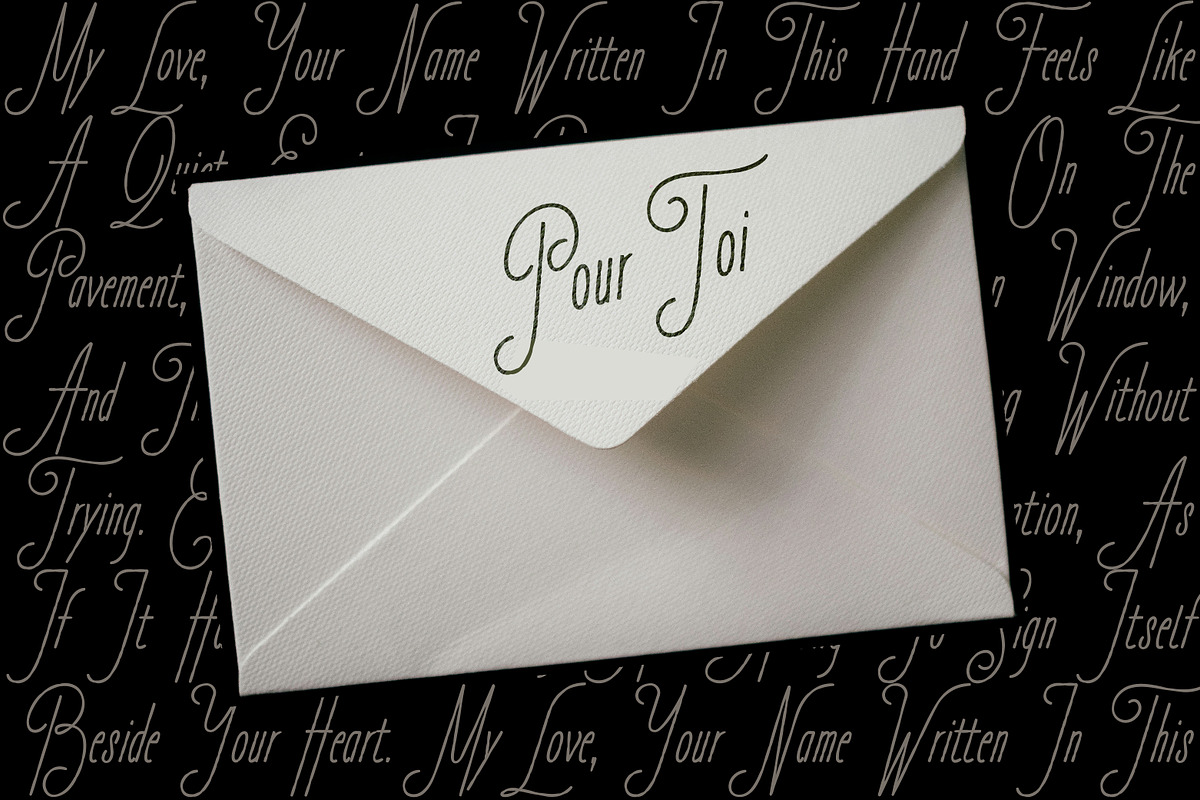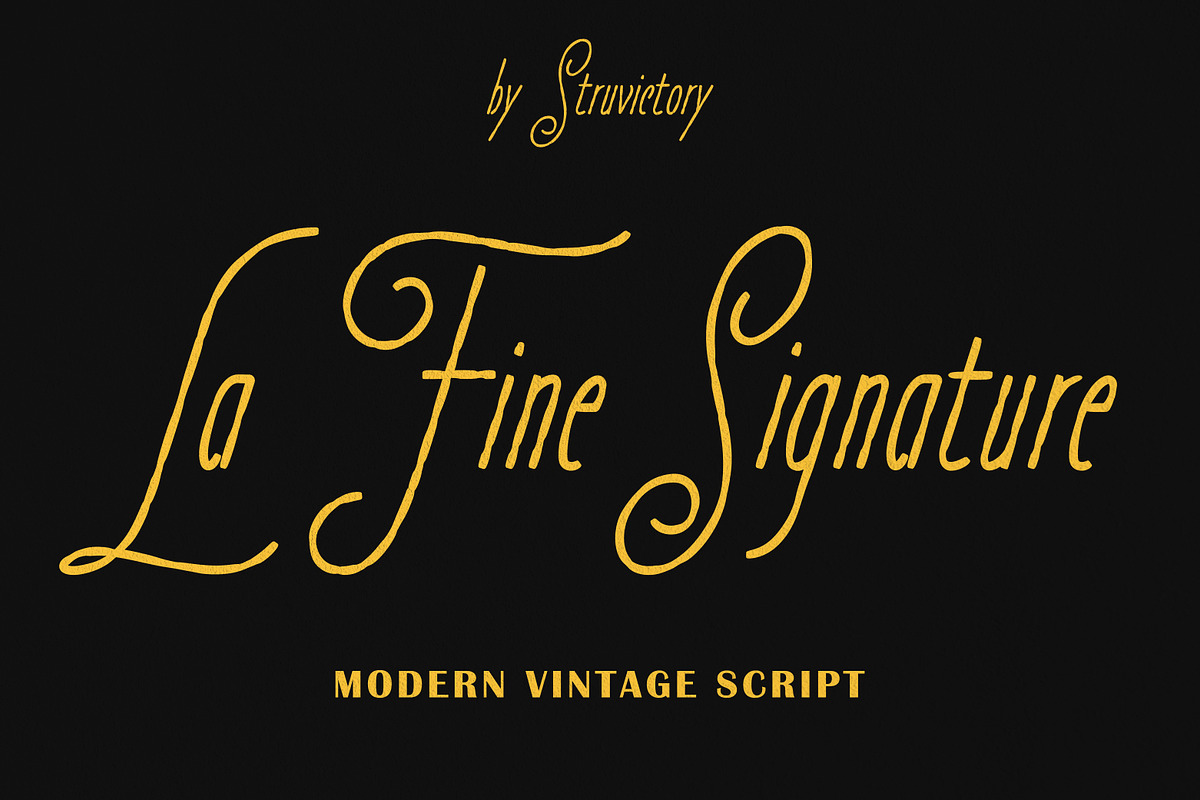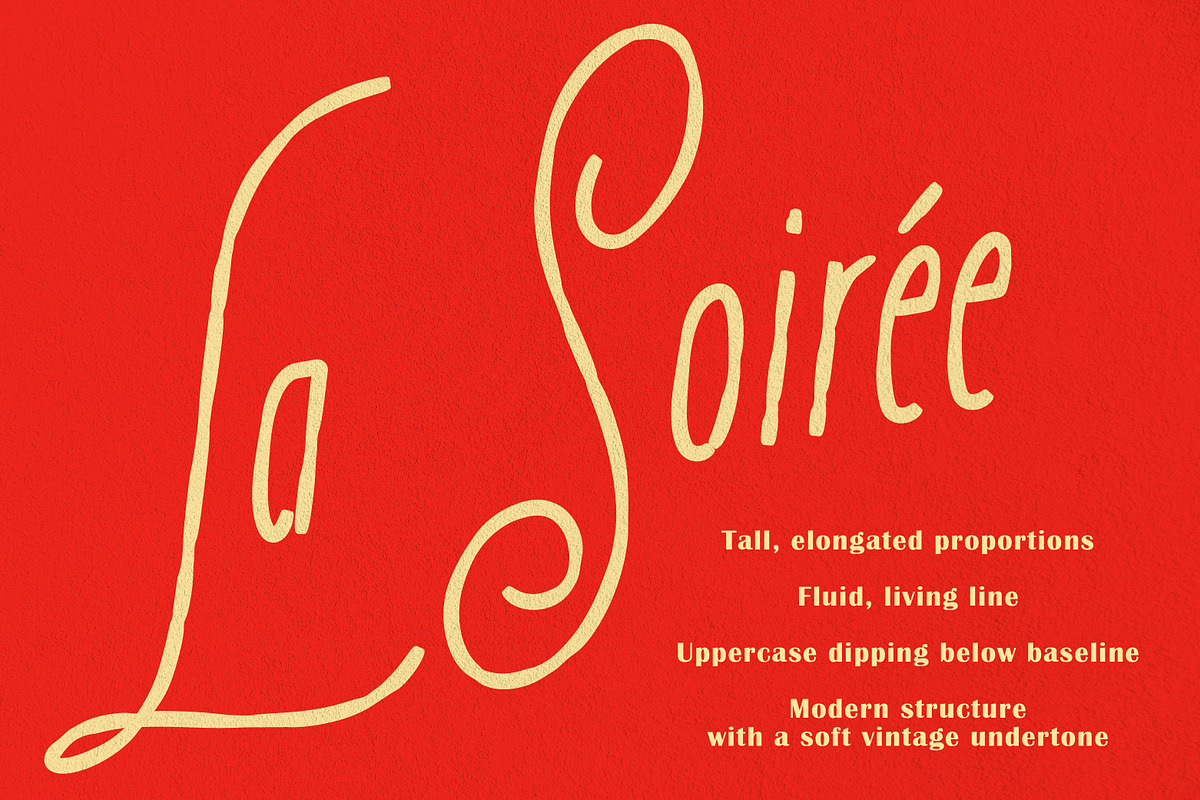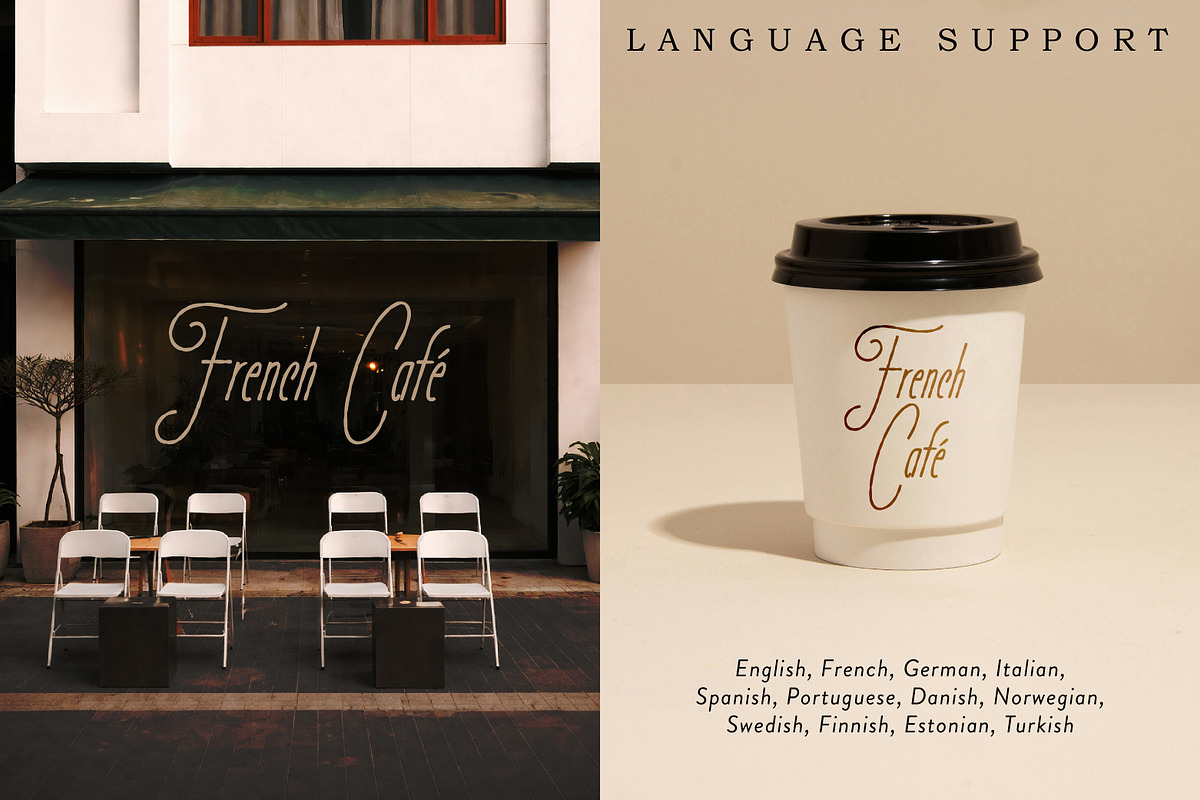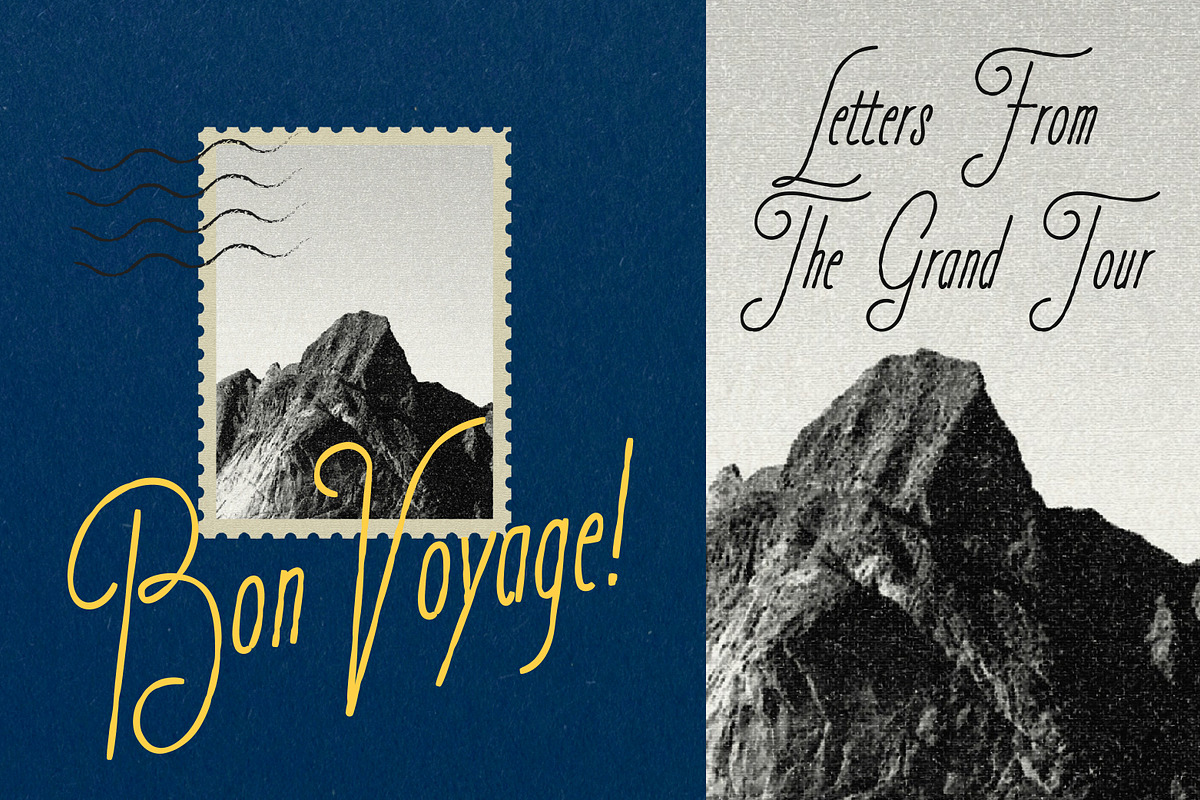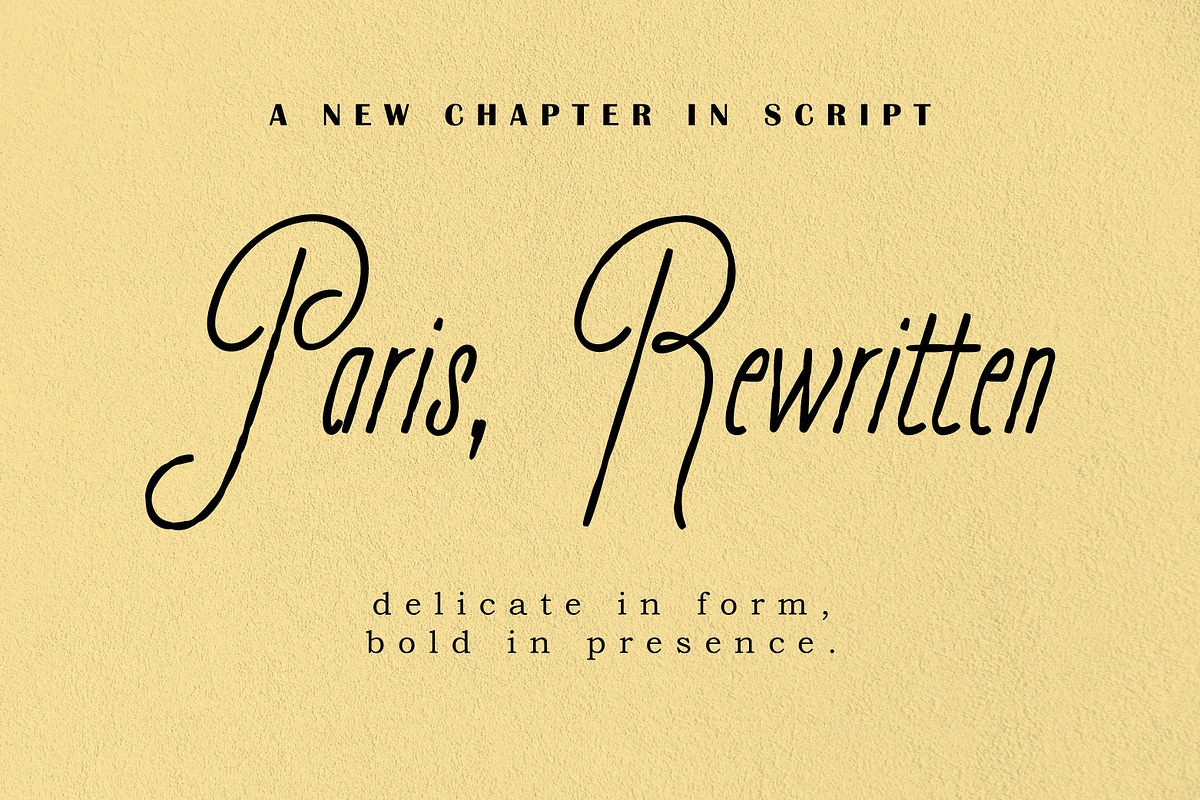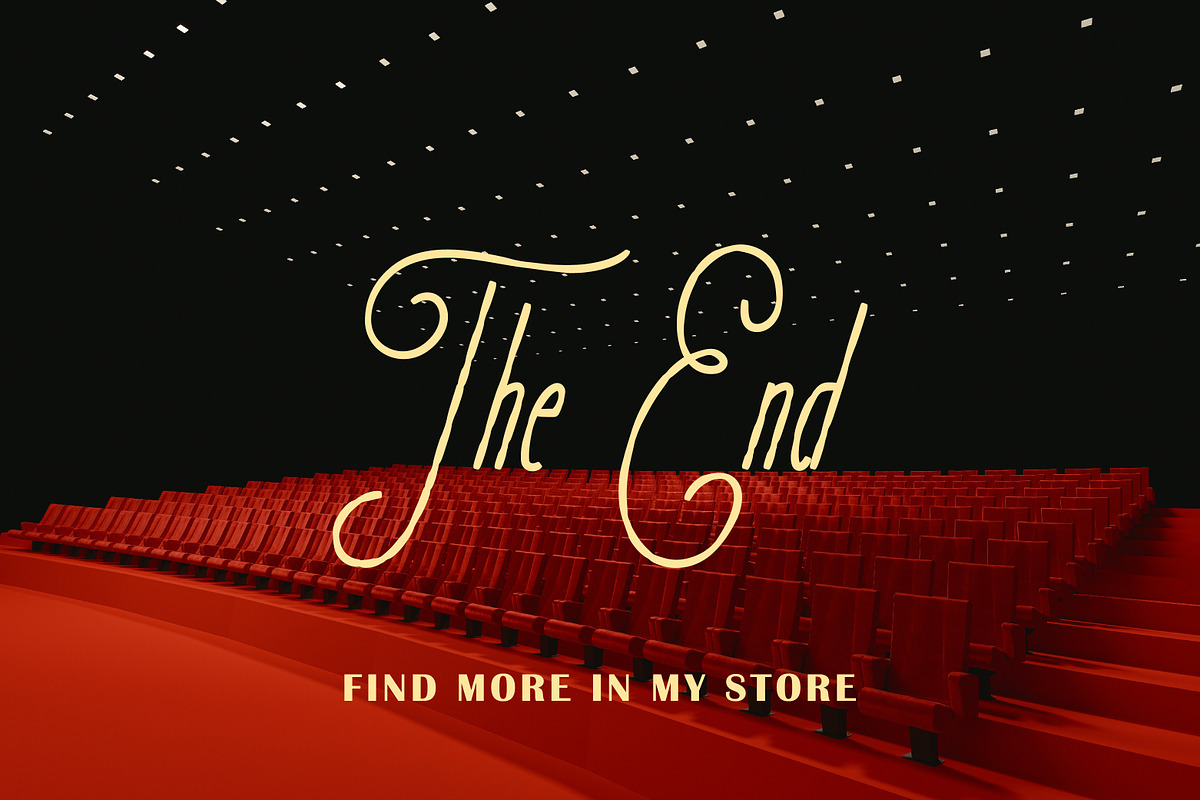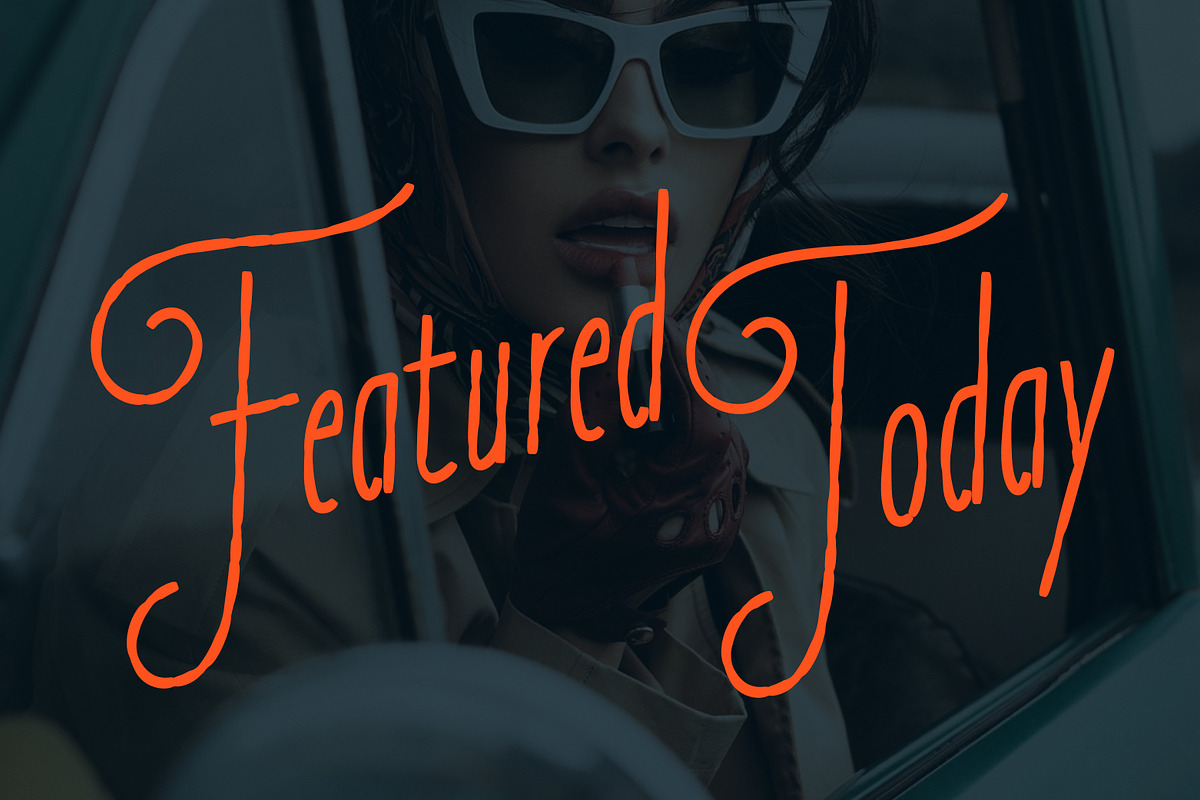
La Fine Signature Elegant Script
La Fine Signature is an elegant, elongated script inspired by Parisian storefronts and timeless handwriting. Designed with tall proportions and a fluid, living line, it captures the feeling of a personal signature written with confidence and restraint. The uppercase letters subtly dip below the baseline, creating a refined rhythm and distinctive silhouette. With its delicate strokes, modern structure, and soft vintage undertone, La Fine Signature is perfect for branding, packaging, editorial layouts, and glass signage where sophistication needs to speak quietly but clearly.